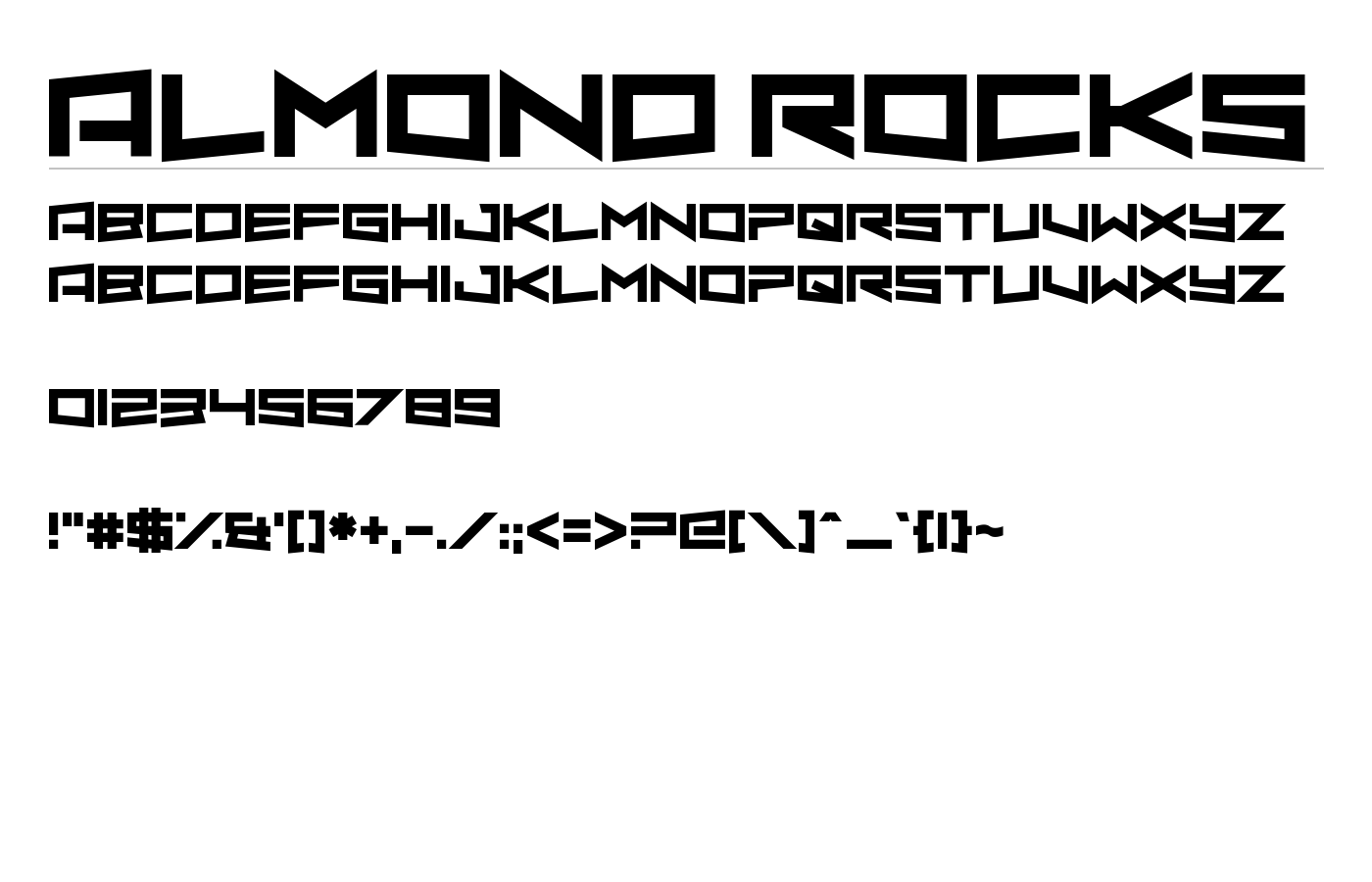
Almond Rocks is a bold, geometric sans serif font with a futuristic and angular design that exudes strength and modernity. Its rigid, sharp-edged letterforms and strong contrast in stroke weight make it ideal for eye-catching headlines, logos, and branding that aim to convey a cutting-edge, dynamic vibe. This typeface works best in creative projects where a bold, tech-inspired style is needed to stand out with confidence.
Almond Rocks Font
About Almond Rocks Font